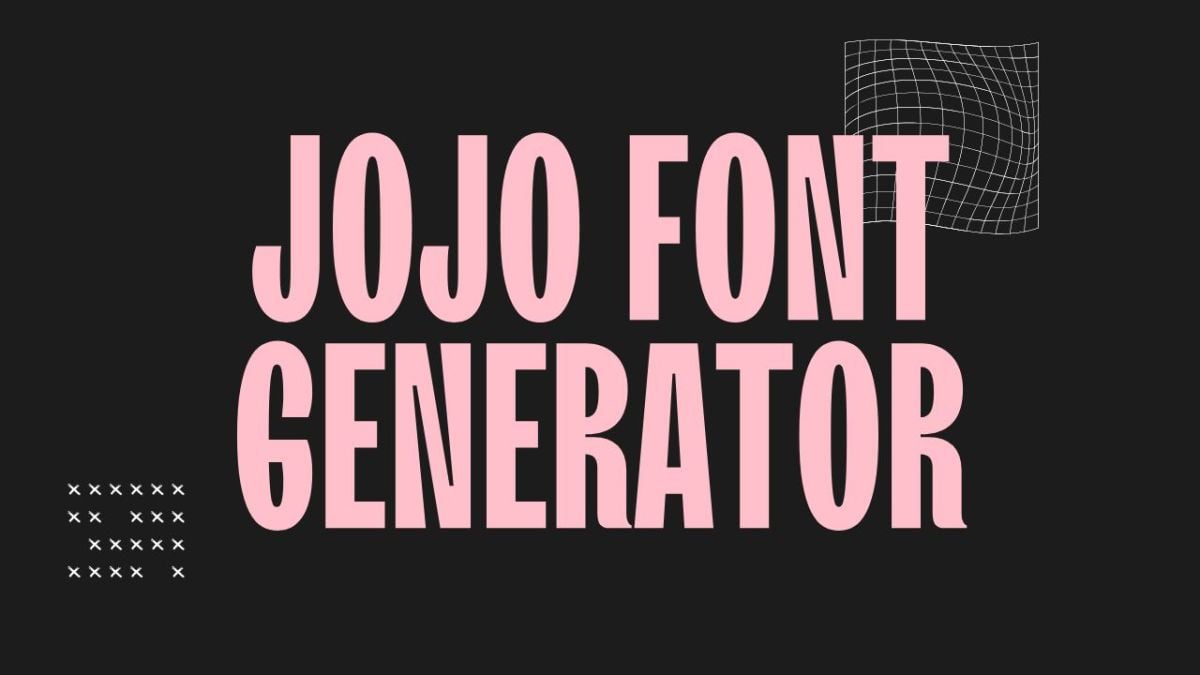
JOJO FONT GENERATOR
Create Anime Style Text Effects
About the Jojo Font
The Jojo font is inspired by the dramatic, stylized lettering seen in the hit anime and manga series Jojo’s Bizarre Adventure. Known for its bold, dynamic strokes and unique flair, this font is perfect for creating memes, fan art, YouTube thumbnails, and any design that needs a touch of anime drama.
Our Jojo Font Generator lets you preview your text in true Jojo style and download the font instantly for your own creative projects.
Key Features
Authentic Anime Typography
Create text with the real Jojo font—ideal for anime, manga, and meme designs.
Instant Text Preview
Type your message and see it instantly styled in Jojo’s dramatic look with live preview and easy customization.
Custom Styling
Adjust font size, color, and effects to match your creative vision—perfect for fans, artists, and designers.
Where to Use the Jojo Font
• Anime Memes: Make your memes stand out with dramatic Jojo text.
• Fan Art: Add authentic manga flair to your illustrations and edits.
• YouTube Thumbnails: Catch viewers’ attention with bold, stylized titles.
• Social Media Posts: Create viral content with eye-catching, anime-inspired text.
• Event Posters: Perfect for anime events, watch parties, or conventions.
Design Tips for Anime Fonts
• Pair with Bright Colors: Jojo fonts pop with purple, yellow, and white backgrounds for dramatic effect.
• Use for Headings: Make your titles and banners stand out with manga style.
• Keep It Bold: Combine with expressive icons or graphics for an authentic anime vibe.
What makes the Jojo font unique?
Its bold, dynamic style captures the dramatic energy of Jojo’s Bizarre Adventure—perfect for fans, meme creators, and anime lovers.